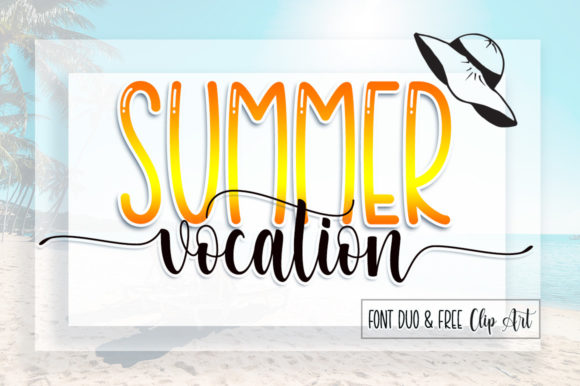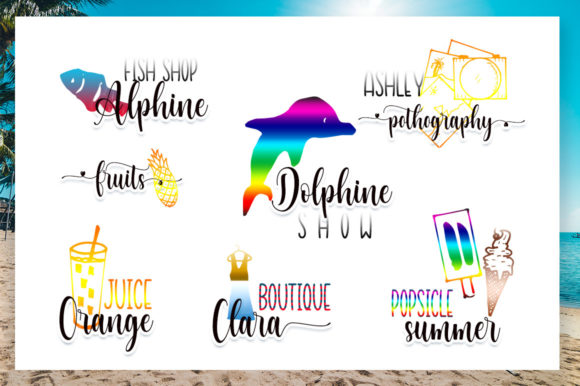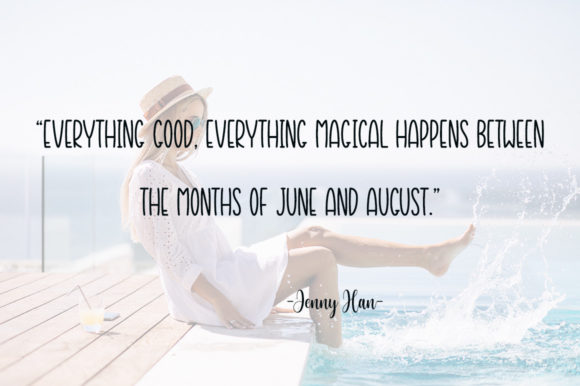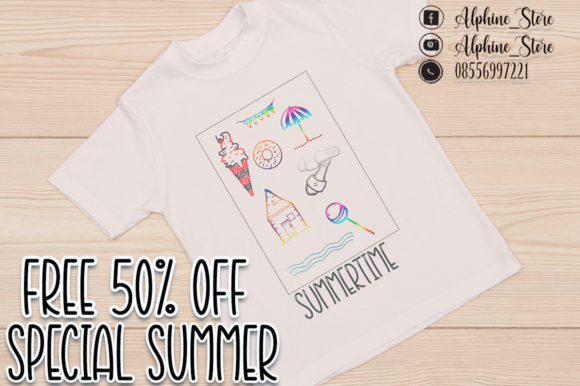
About Summer Vocation Font
Summer Vocation is a spectacular duo font (sans serif and script). Incredibly versatile, this font fits a wide pool of designs, elevating them to the highest levels. Summer Vocation is PUA encoded which means you can access all of the glyphs and swashes with ease!